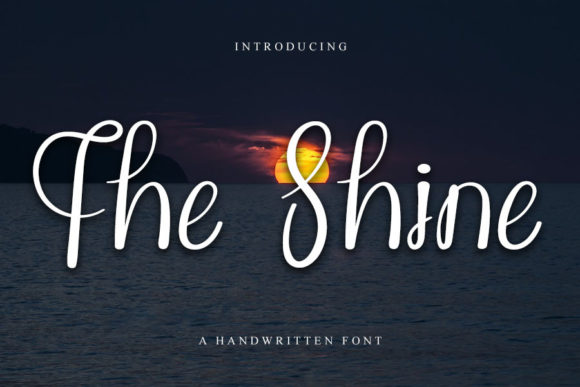
Prepare yourself to be mesmerized by The Shine Font, a captivating script font that will illuminate your designs with its radiant glow. Crafted with meticulous care by the renowned Inermedia STUDIO, The Shine Font is more than just a collection of letters; it's an artistic masterpiece that will transform your creative visions into breathtaking realities.
Indulge in the font's graceful curves and elegant strokes, each meticulously designed to evoke a sense of timeless sophistication. The Shine Font is the epitome of grace and allure, embodying the essence of classic penmanship with a contemporary twist. Allow your imagination to soar as you explore the limitless possibilities that await you with The Shine Font.
Whether you're crafting unforgettable logos, captivating social media posts, or enchanting wedding invitations, The Shine Font will elevate your designs to new heights. Its versatile charm seamlessly adapts to any project, adding a touch of understated luxury and timeless appeal.
Unleash the power of The Shine Font and watch your ideas blossom into extraordinary creations. This font is the perfect choice for designers, artists, and creative professionals who seek to leave an unforgettable mark on the world.